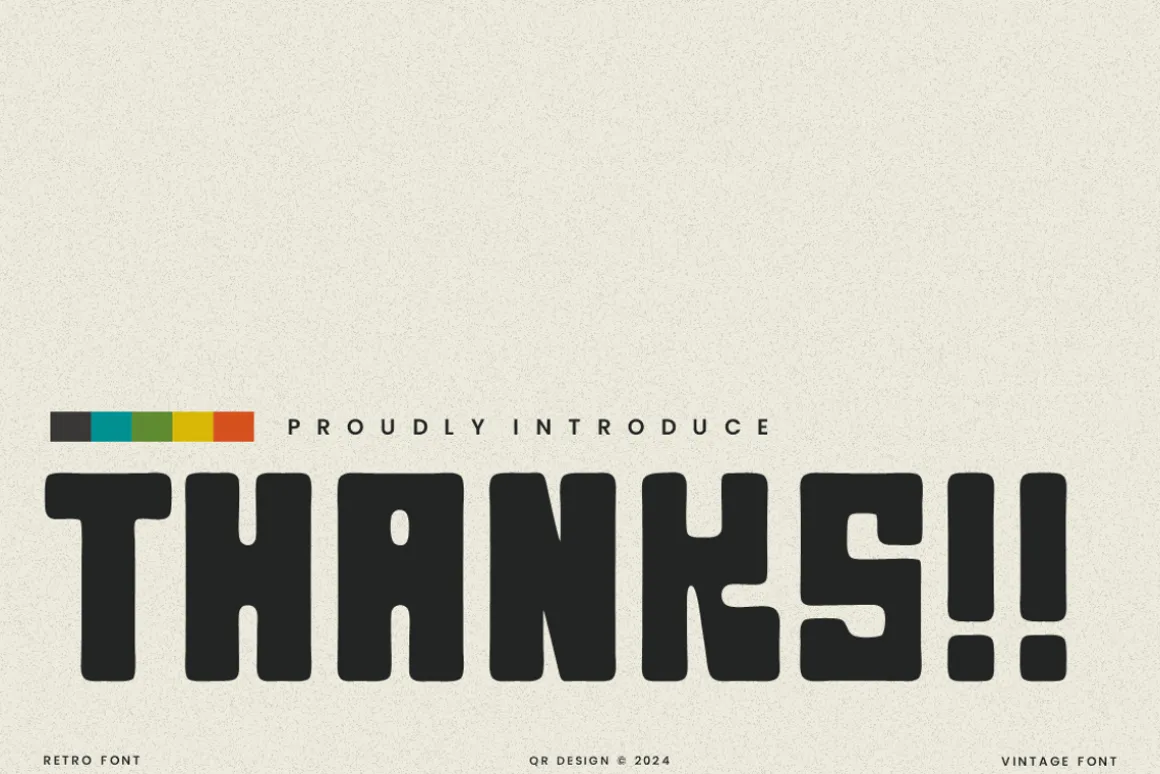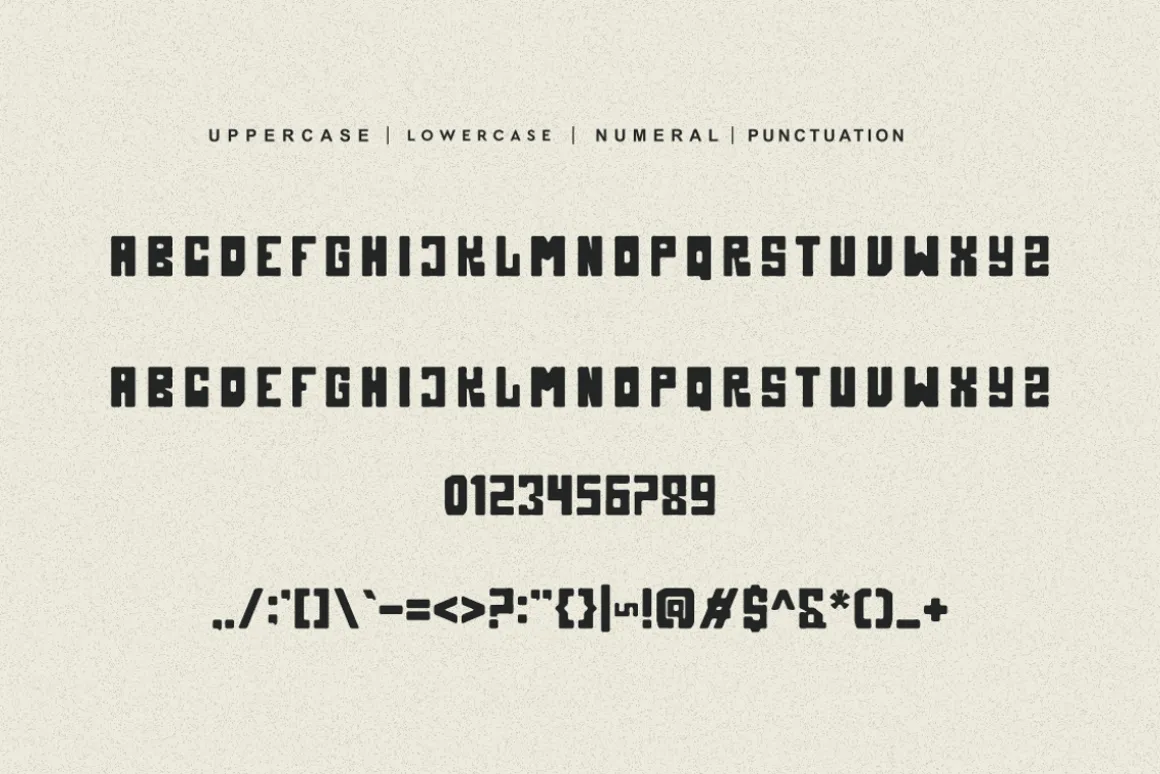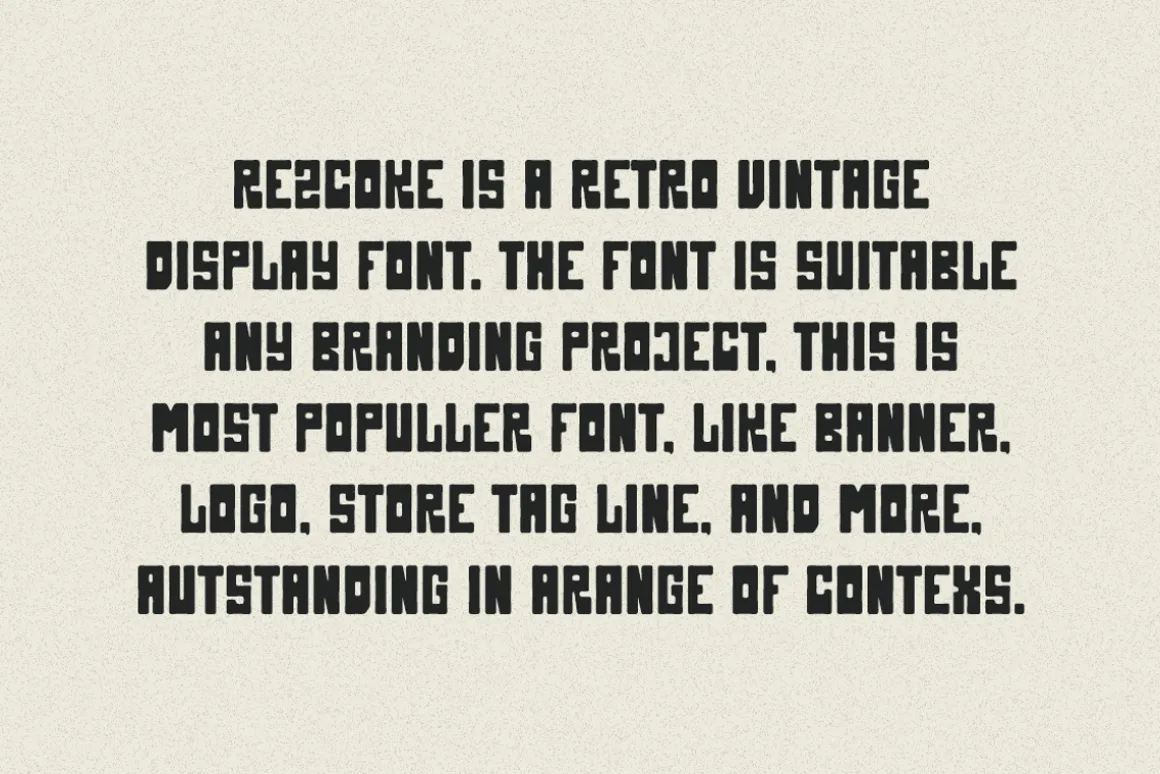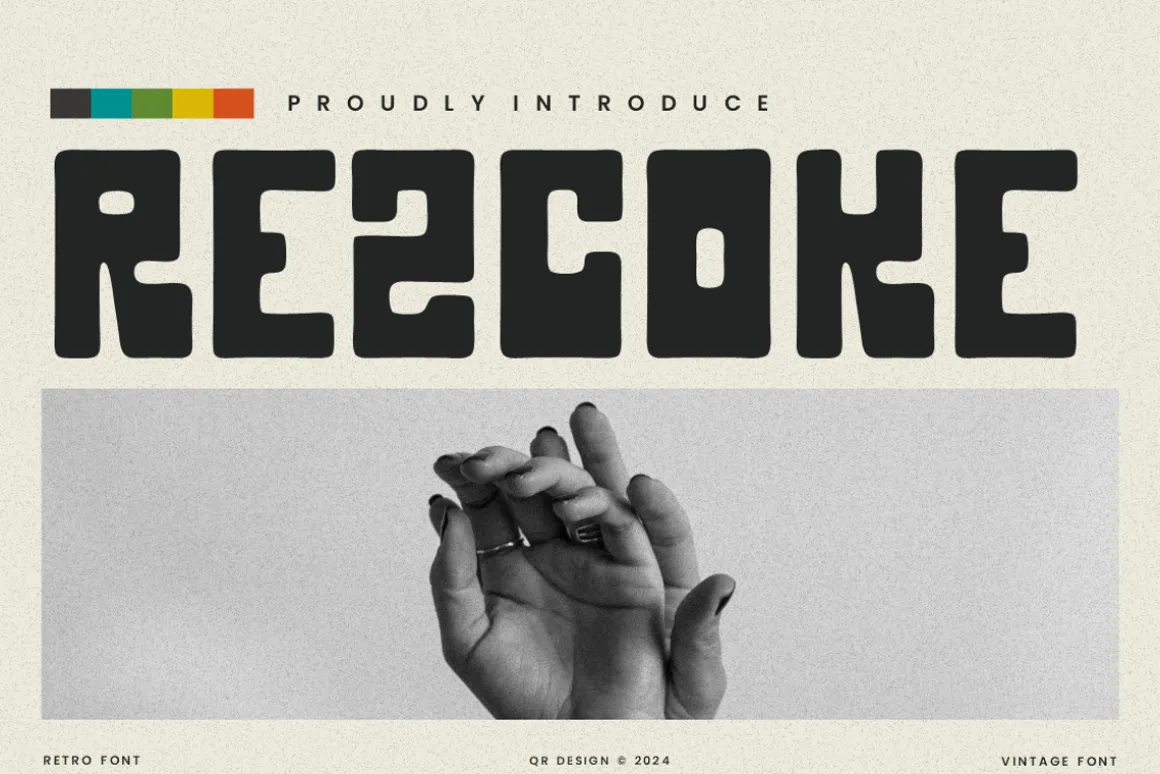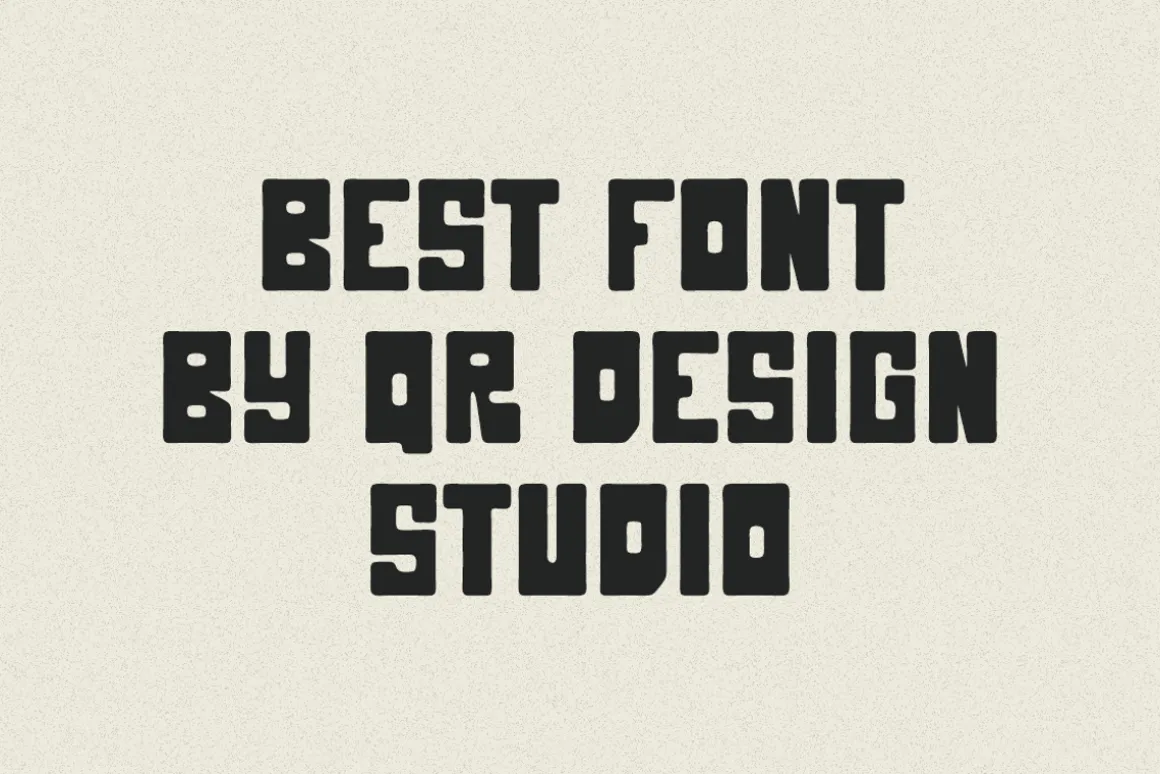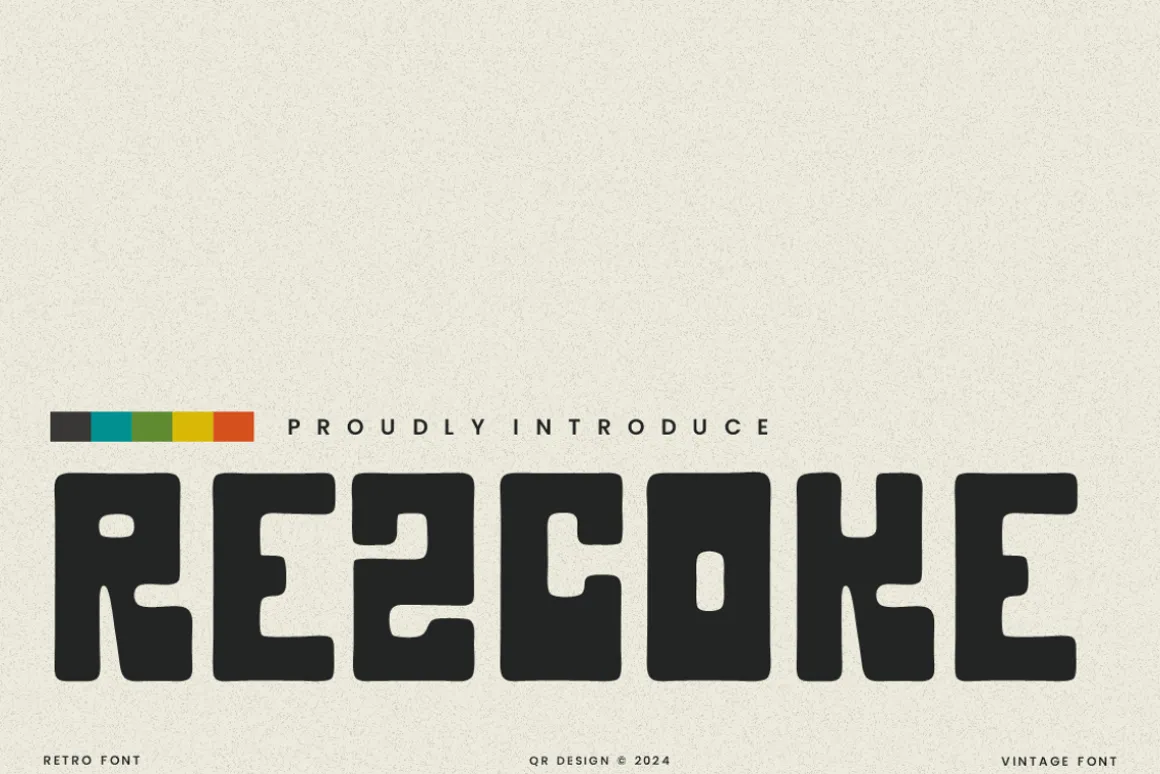
Rezcoke – Retro Vintage Font is a bold and authentic display font.The font is suitable for any branding project like poster, logo, sport, and many more.Outstanding in a wide range of contexts.